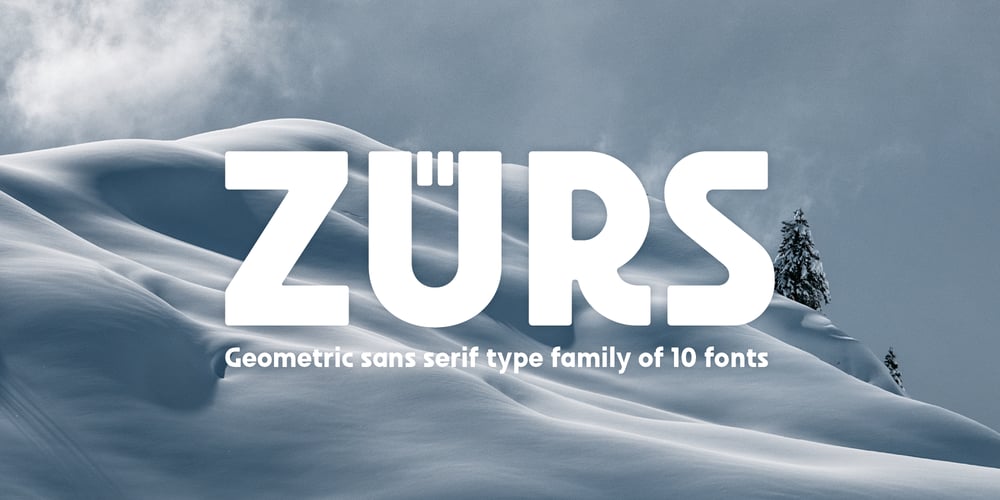
Zuers Font Family was designed by Markus Fetz and published by Markus Fetz. Zuers contains 12 styles and family package options. Zuers is a geometric sans serif consisting of 5 weights: Light, Regular, Medium, Bold and Black with matching italics and two variable fonts (upright and italic). Each style has 635 glyphs. Zürs is the name of a ski resort in the Austrian Alps, in the state of Vorarlberg. The design of the typeface is based on a hand-drawn caption on the advertising poster »Zürs Arlberg Austria« from 1935 by Alexander Wagner. Although only a few letters and numbers were given as inspiration, it was sufficient to create an entire font. Zuers comes with a range of OpenType features: alternative letterforms tabular and old-style figures (no tabular old-style) ligatures fractions case-sensitive forms super- and subscripts etc.